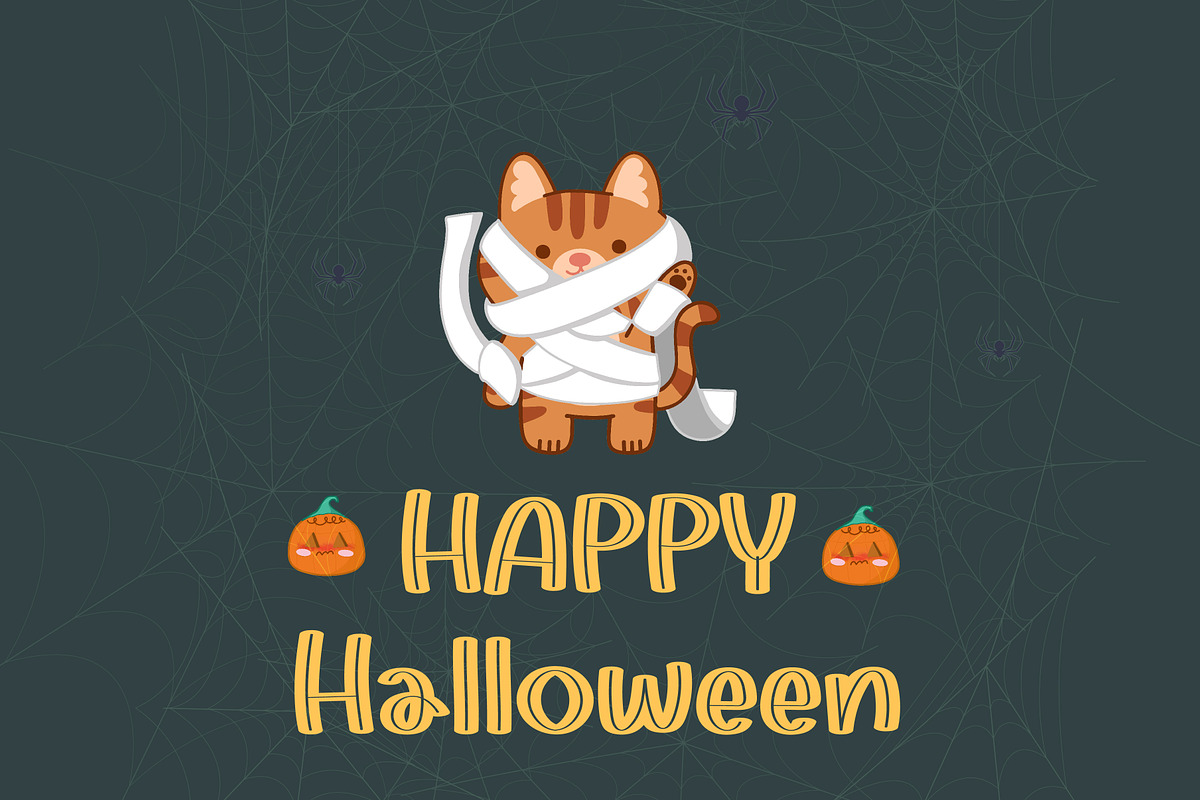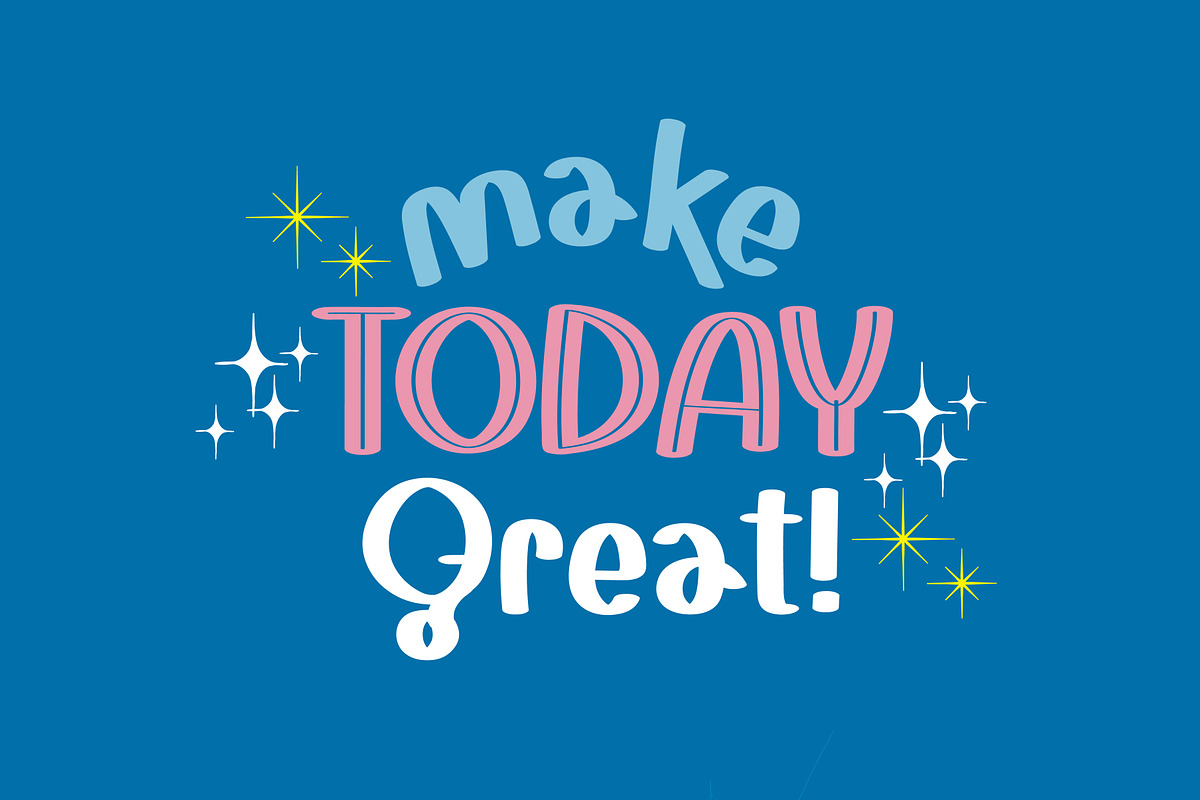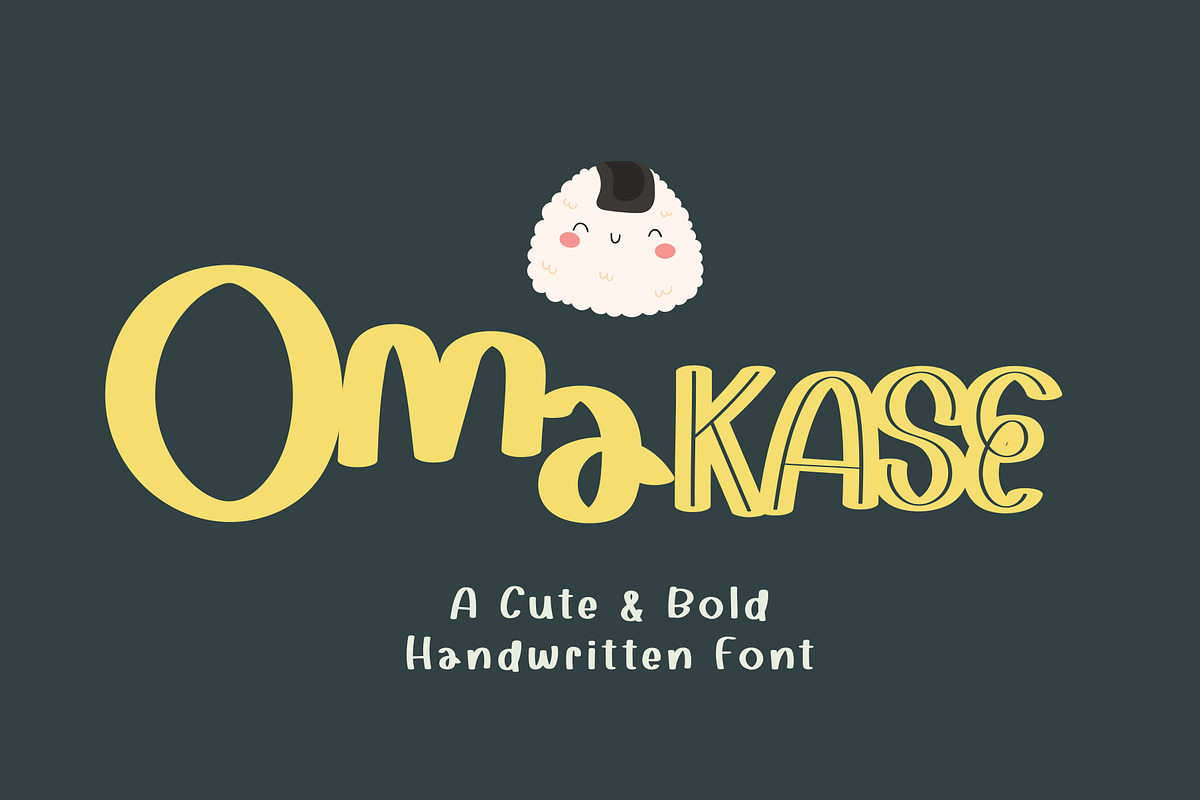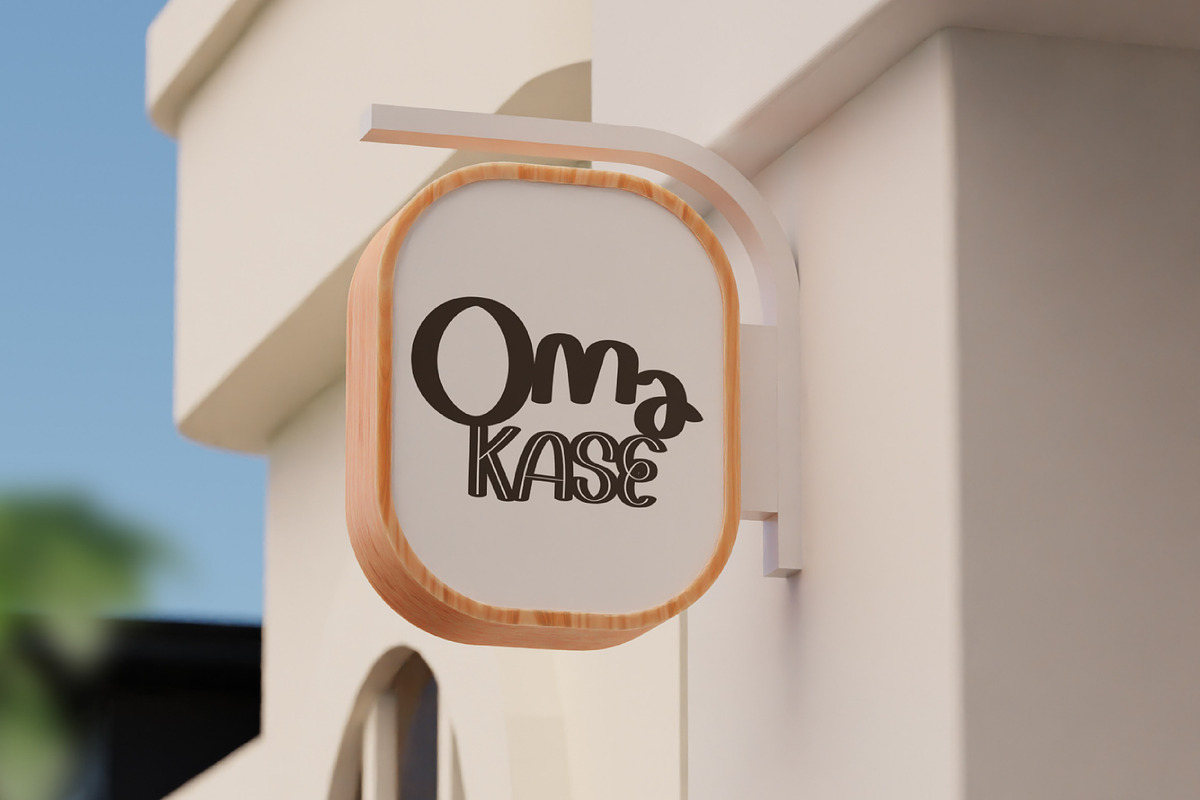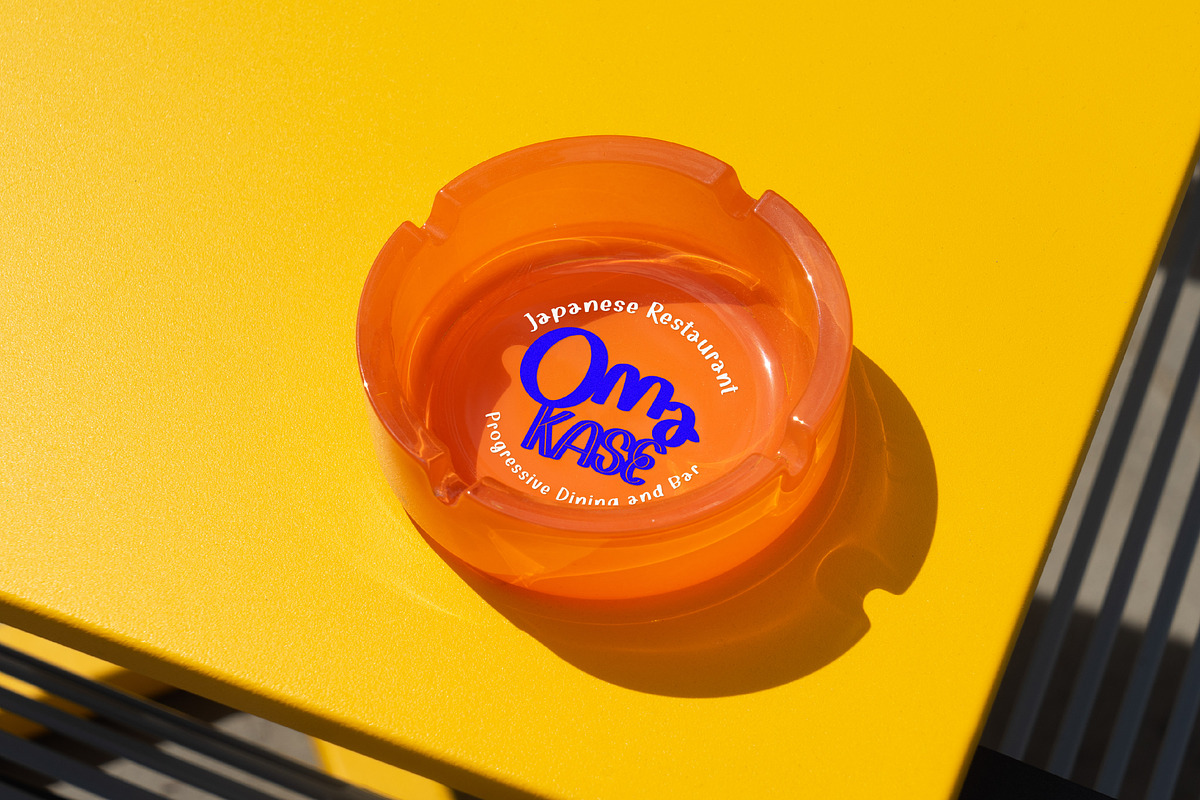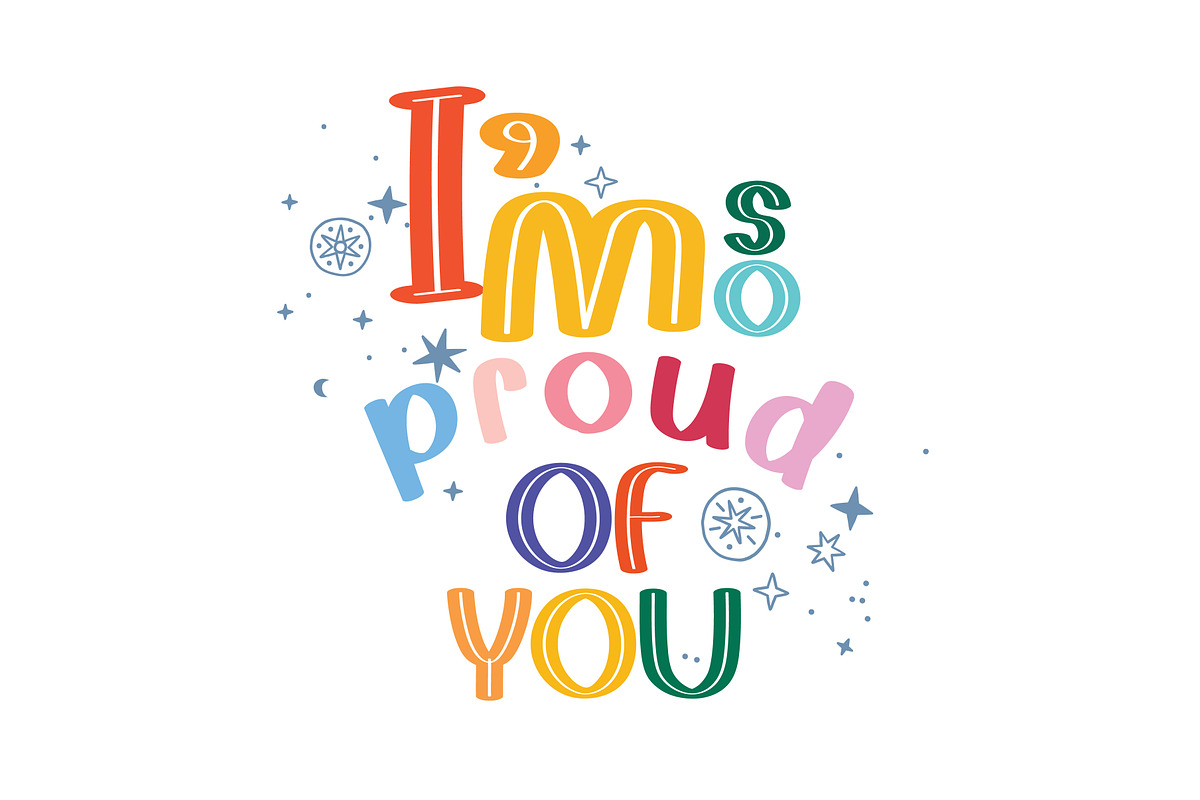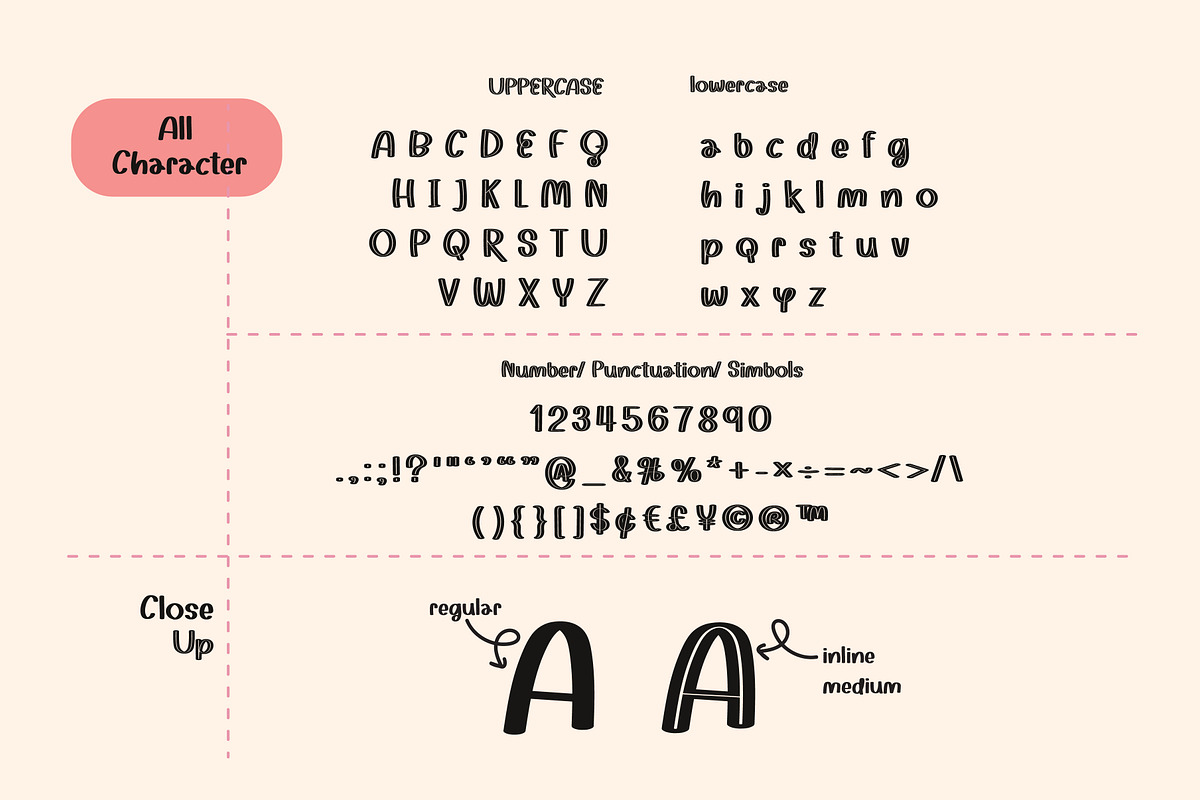
Omakase
Introducing the Omakase Font — a fresh, lively handwritten style that marries simplicity with a touch of cuteness. Omakase Font is a versatile blend of clean lines and artistic charm, perfect for digital planning, note-taking, and creating study notes with personality. Its unique design can brighten up your digital notebooks like Goodnotes and even enhance your creative projects on Procreate. As neat as your handwriting wishes it could be, and as simple as your design needs it to be, Omakase has the power to transform any textual content into an eye-catching piece.